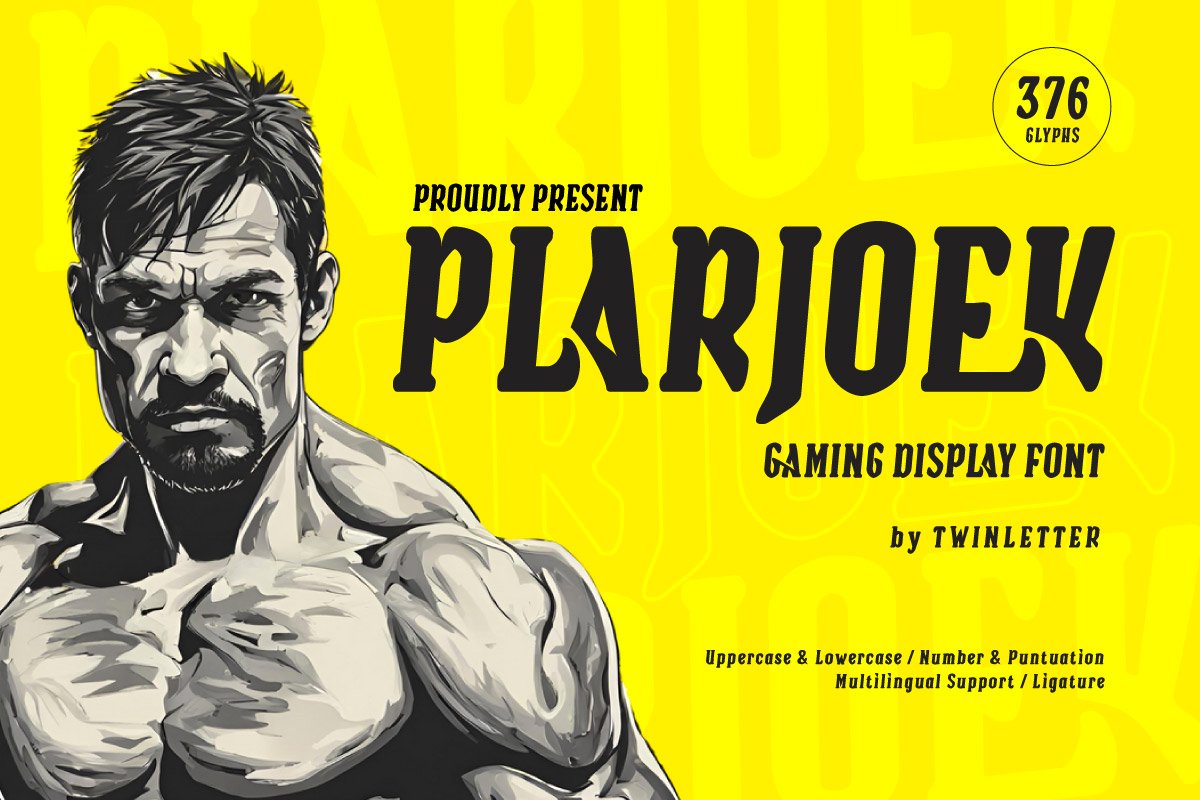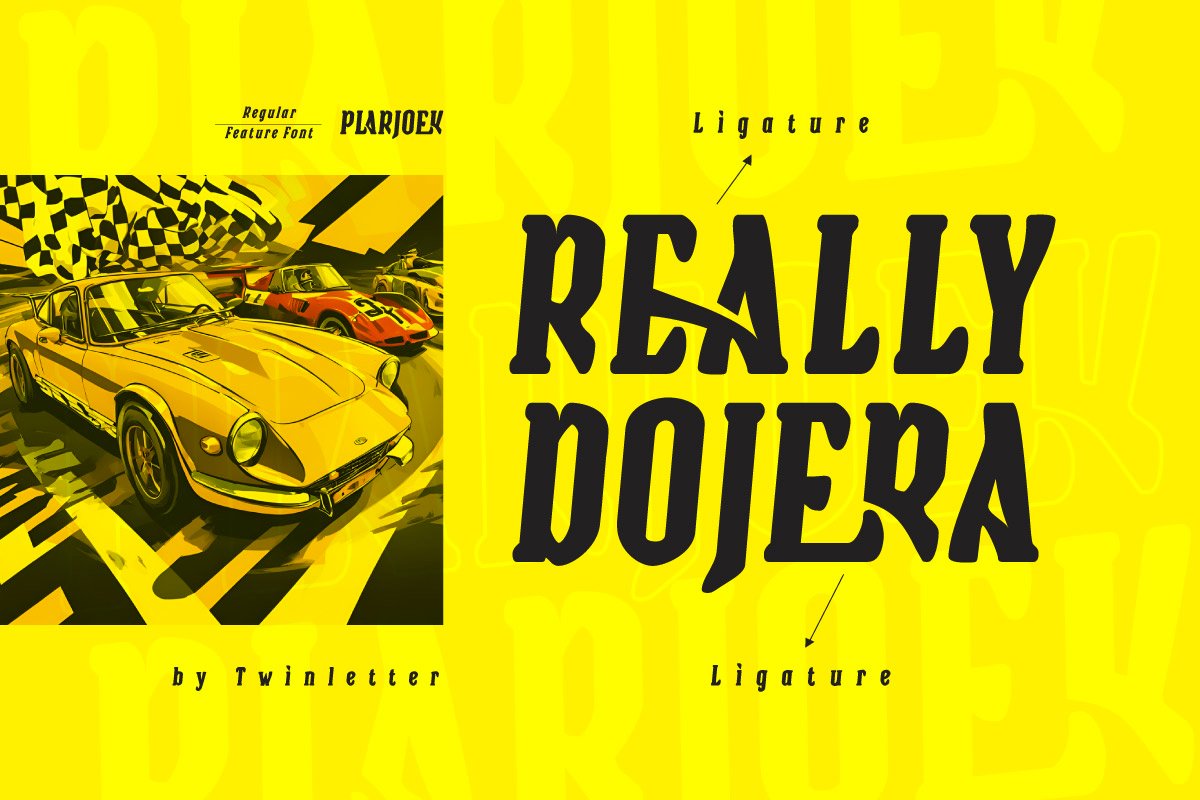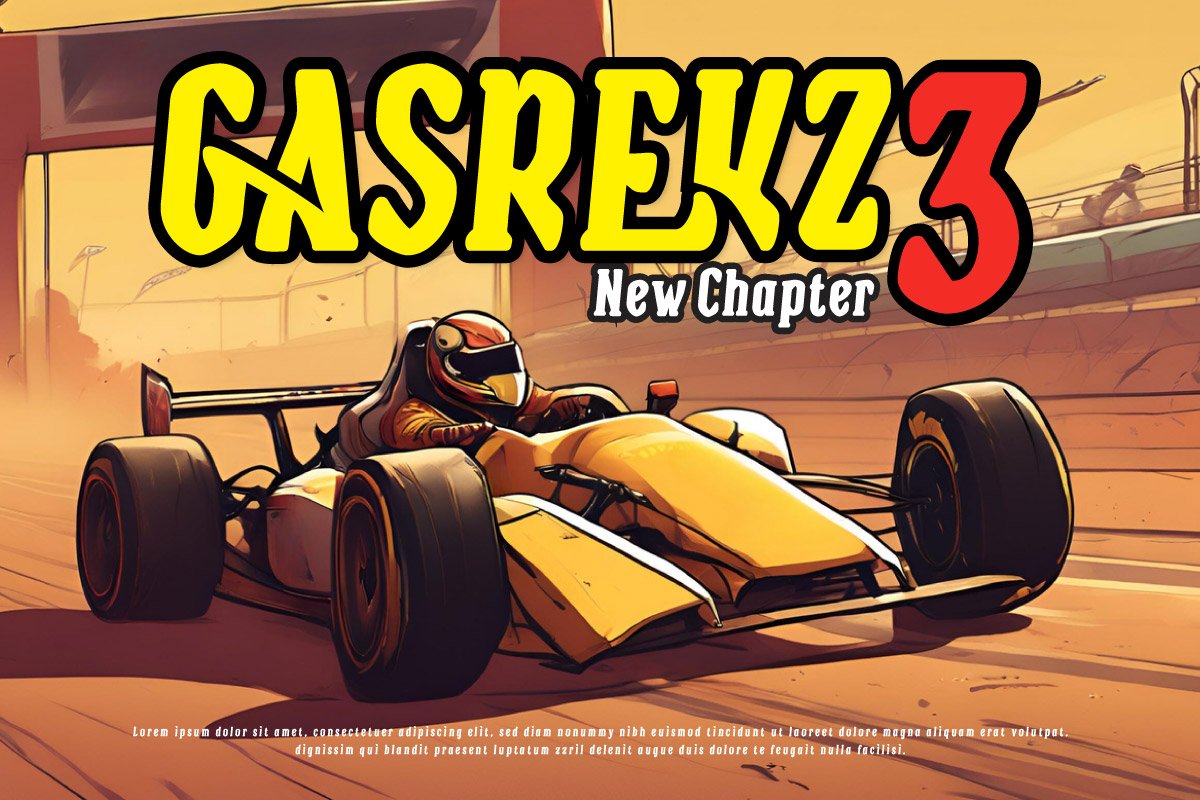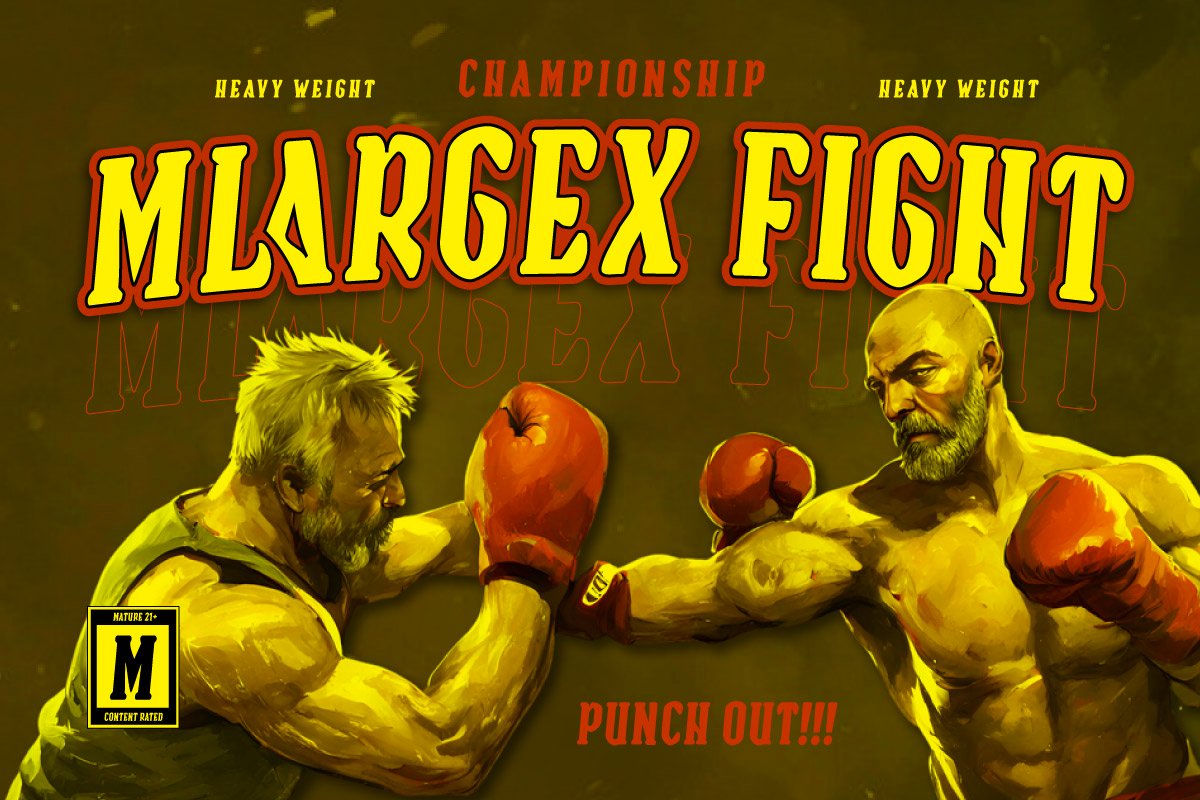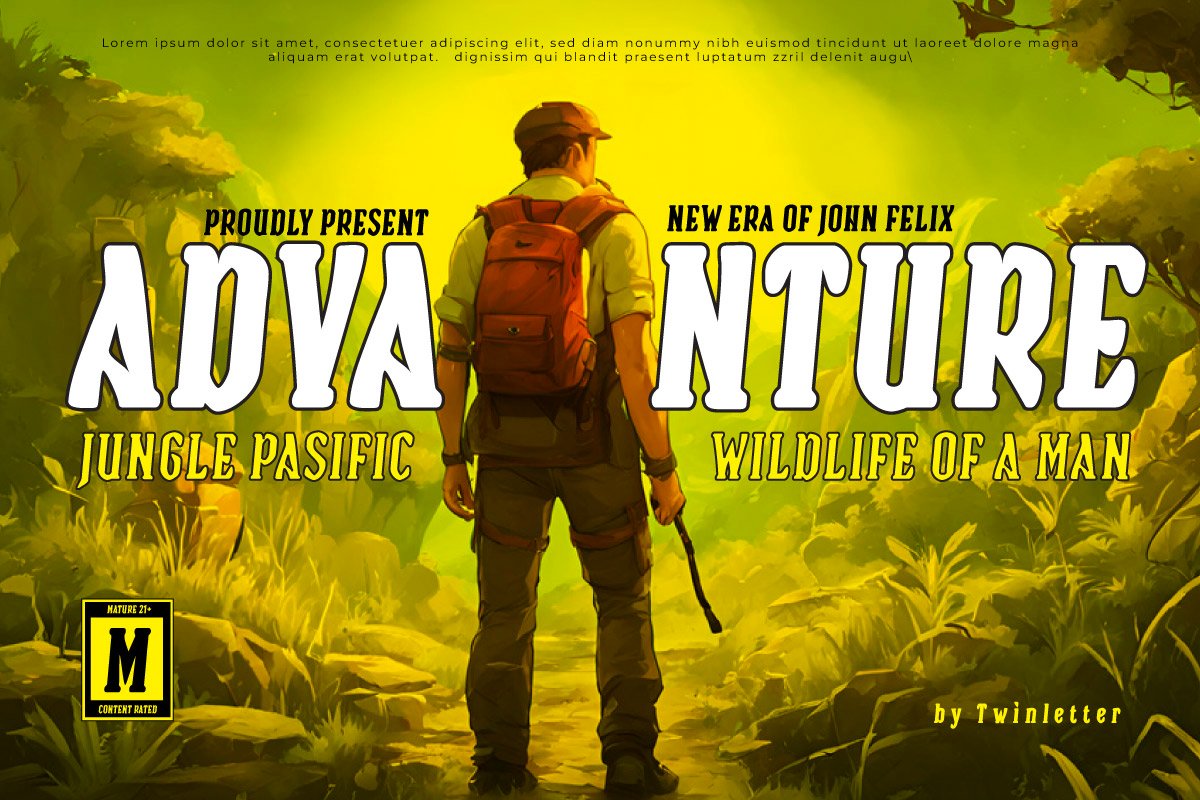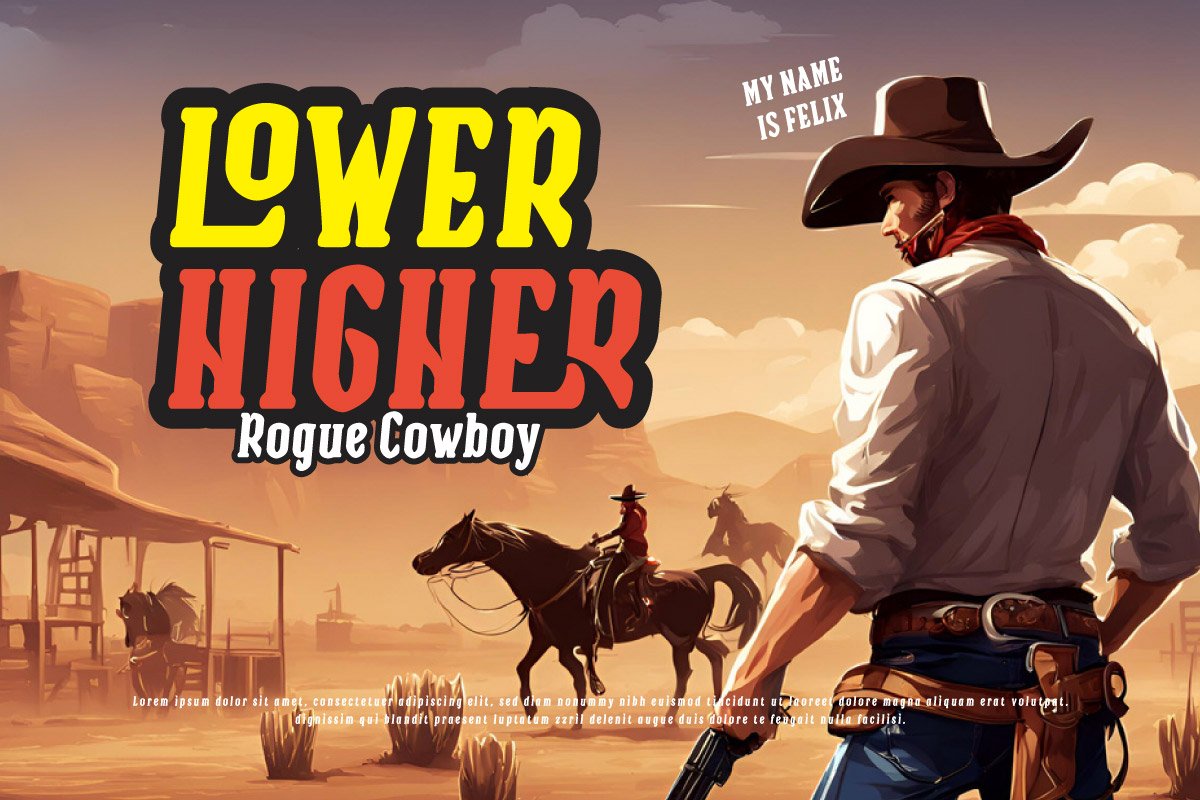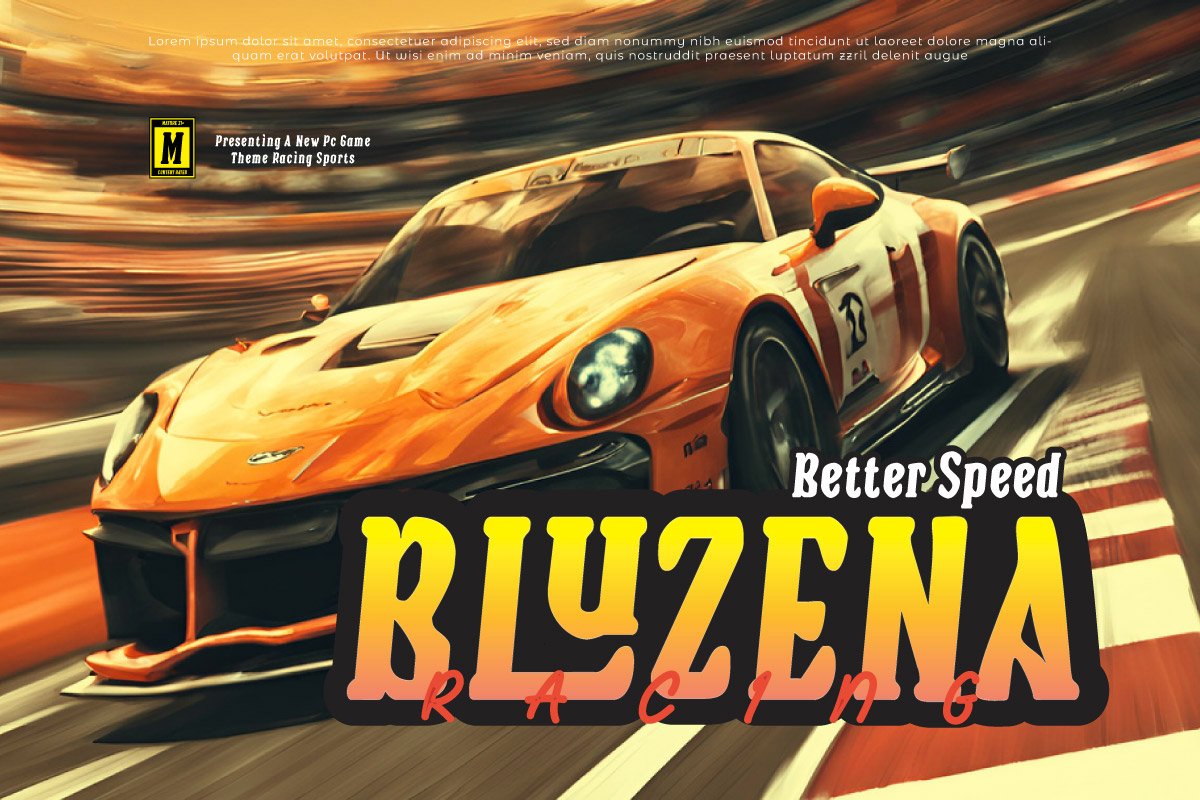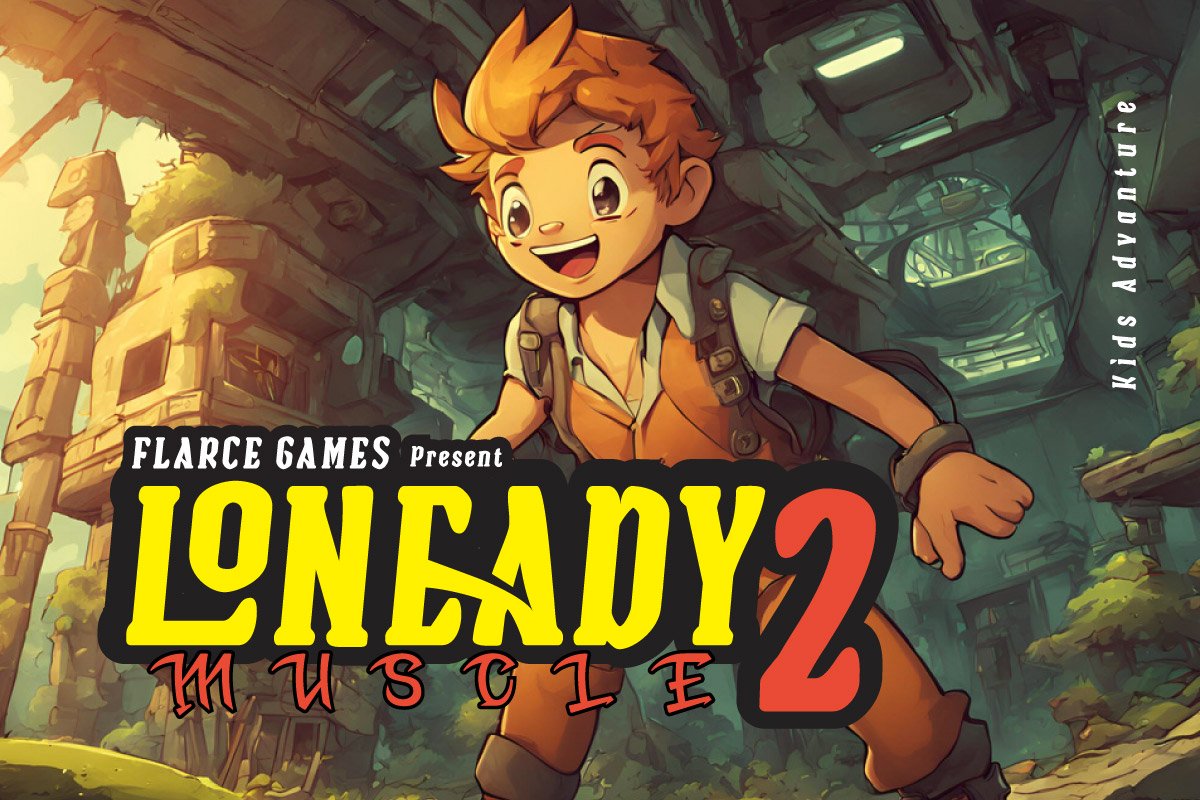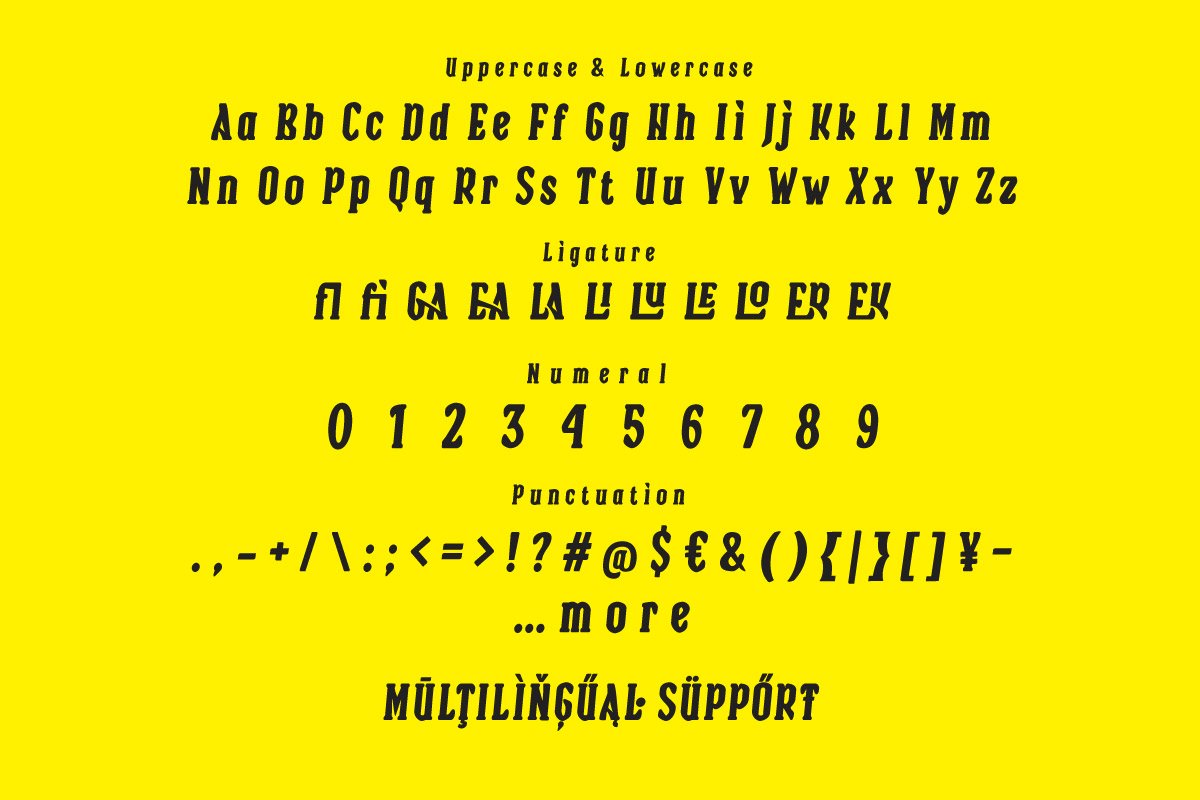
Plarjoek – Gaming Font
Enter the exciting world of Plarjoek, a gaming font designed to bring your digital projects to the next level. Perfect for game titles, streaming graphics, esports branding, and tech-themed designs, Plarjoek combines futuristic elements with a bold, edgy style. Its sharp angles and dynamic forms capture the essence of modern gaming culture, making it a must-have for developers and designers in the gaming industry. Whether you’re creating a game logo, a Twitch overlay, or a cyber-themed poster, Plarjoek provides the perfect balance of intensity and readability. Embrace the thrill of Plarjoek and power up your designs with the ultimate gaming font.